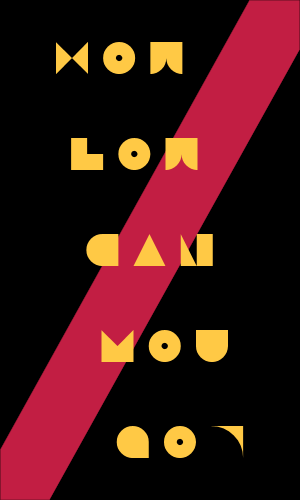
• Can you go any lower? I doubt it! I refrained from brick-stacking on this one, just to get a sense of what it would be like 'pure.' Comments/Sugesstions Please. [Just discovered mini by eti - well, mine's a tad different... and I had more tiles to work with.]
Although I like your font I have to say I have seen it before. Please browse this website and you will find very similar ones.
try oneblock from me for example.